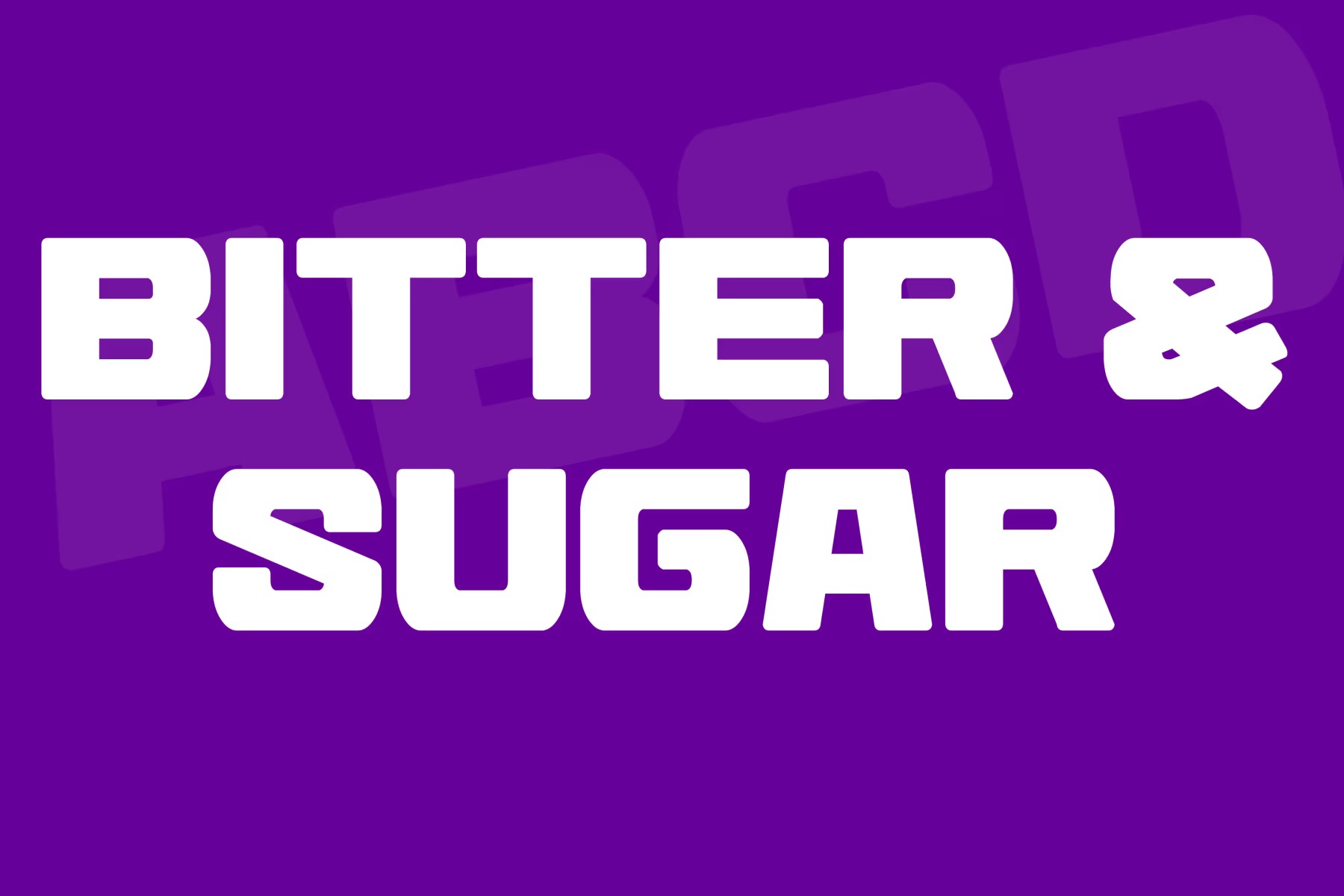
Bitter & Sugar Font
Bitter & Sugar Font – This is a sans-serif display typeface featuring an extra-bold, heavy weight with smooth rounded corners. Its characters maintain a uniform width, giving the font a solid, modern appearance. This type style is ideal for large titles, logos, and designs that require strong visual impact and high readability at large sizes.